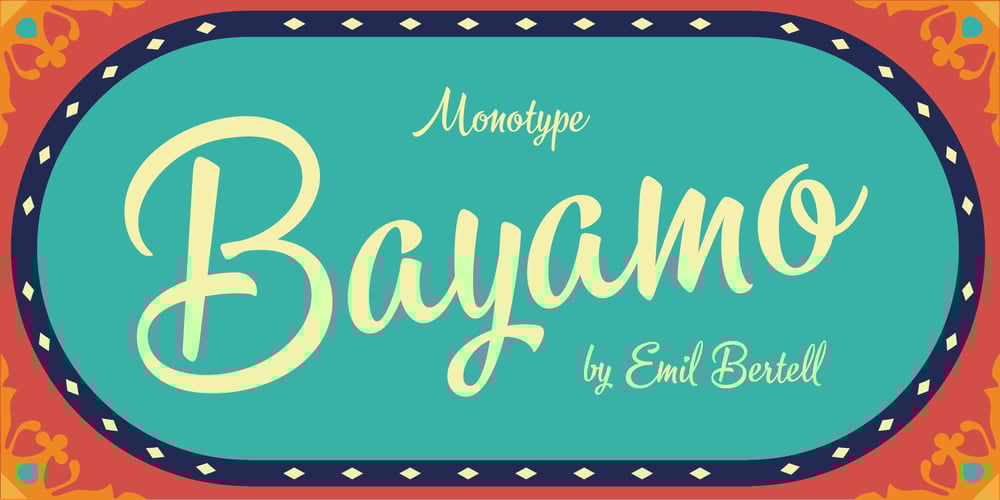
Bayamo Font Family was designed by Emil Karl Bertell and published by Monotype. Bayamo contains 1 styles and family package options. Emil Bertell’s Bayamo is a contemporary, digital take on the brush script tradition. It echoes the loose forms and energetic personality of sign painted letters, tapping into the current nostalgia for hand-drawn type. “I think most script fonts nowadays are either some kind of modern calligraphy, or synthetic/mechanical scripts,” says Bertell. “This one leans more towards a classic American sign painting tradition.” Contextual alternates ensure that lowercase characters change depending what’s next to them, mimicking the more varied word shapes created by sign writers. Well suited for branding projects, packaging and headlines, Bayamo also pairs well with strong sans serif, and other typefaces with angular forms.